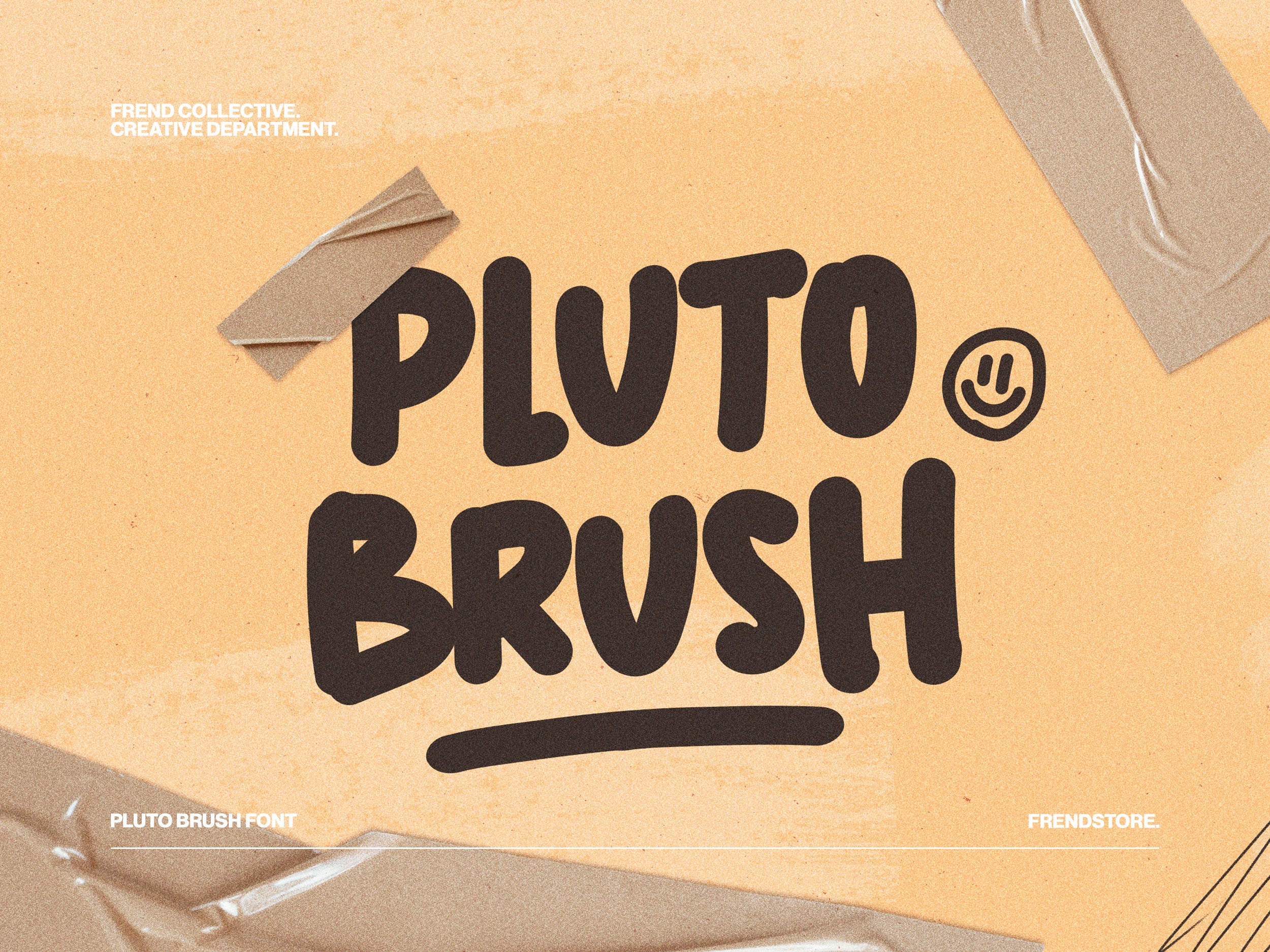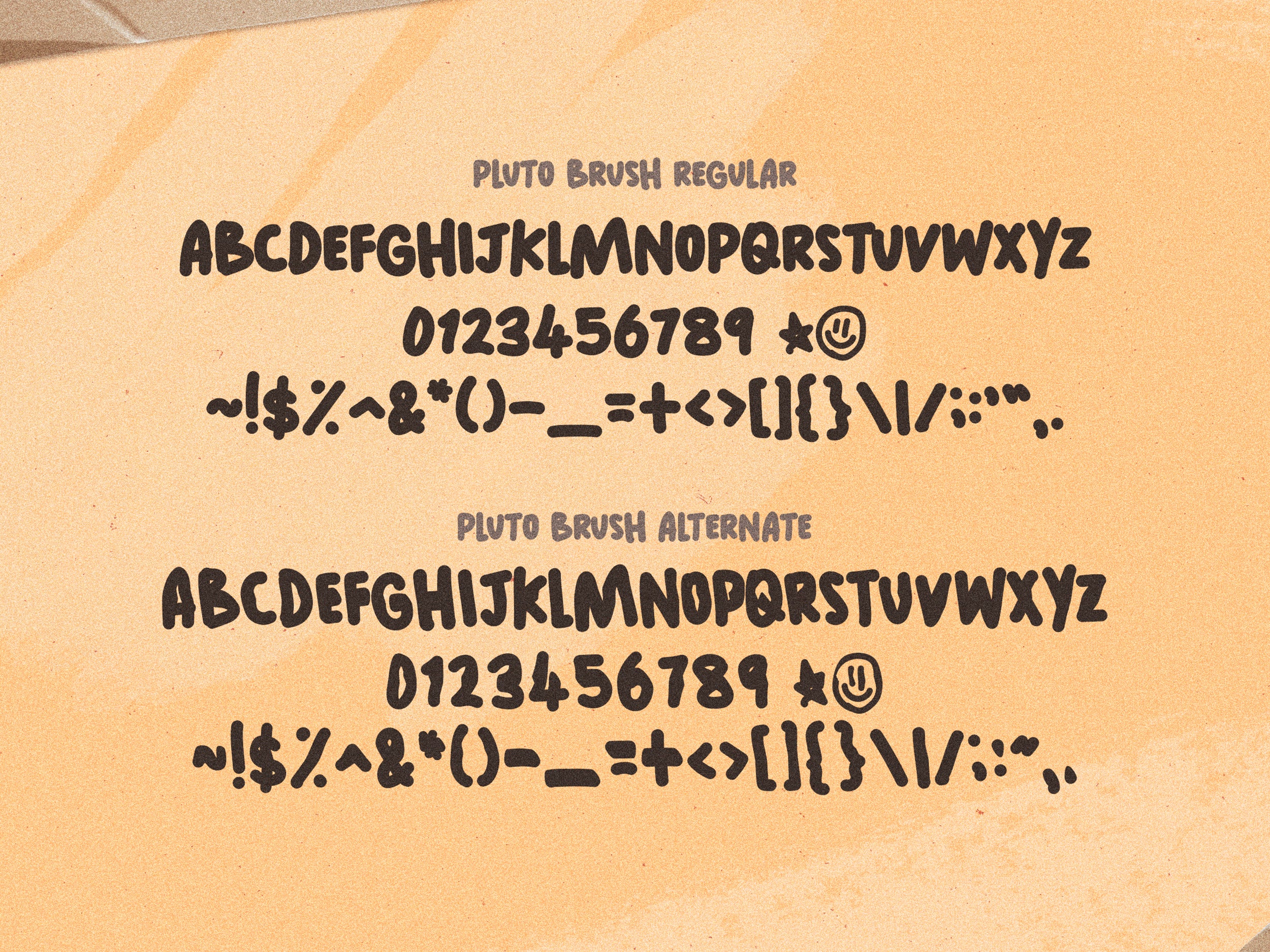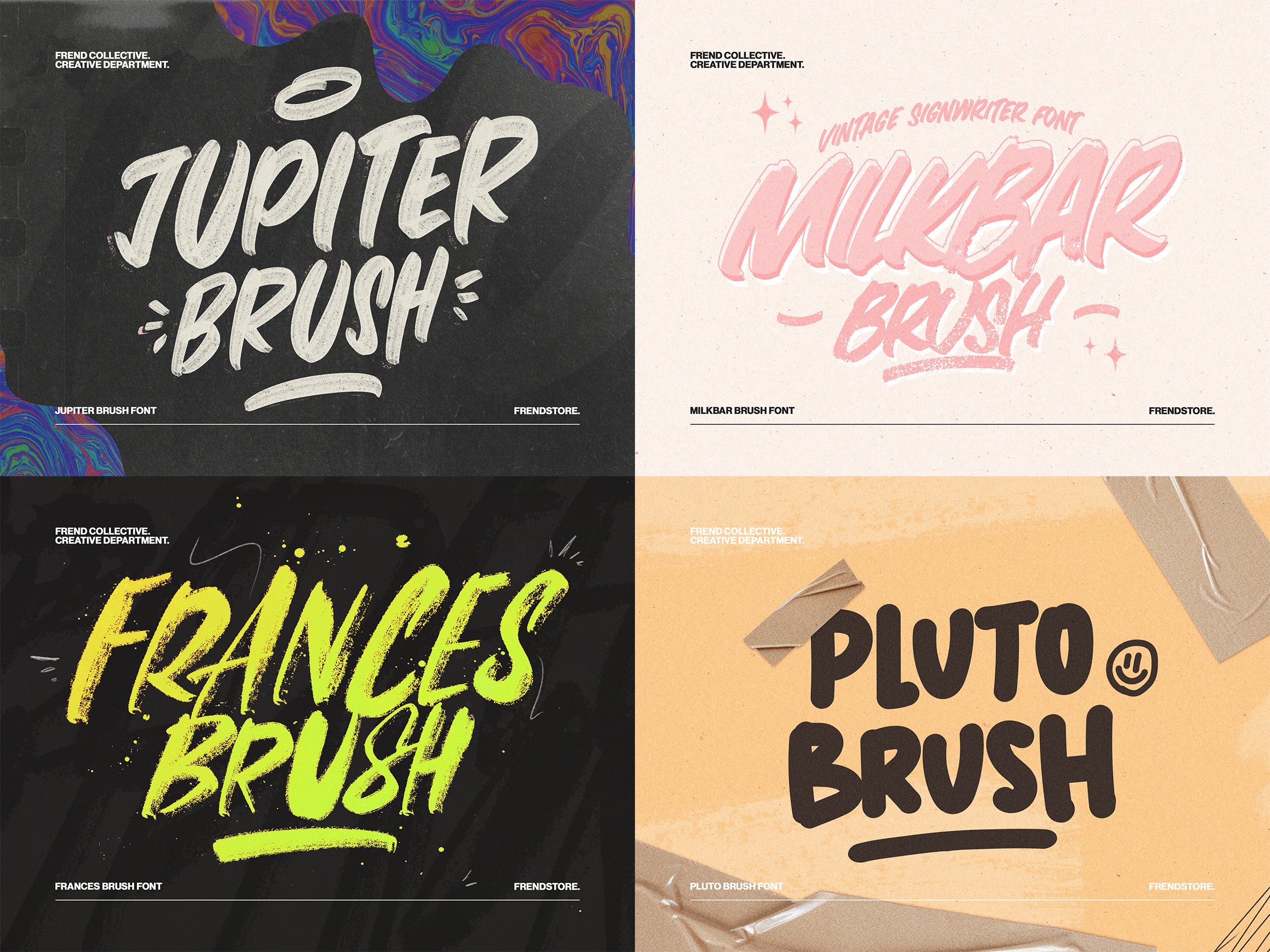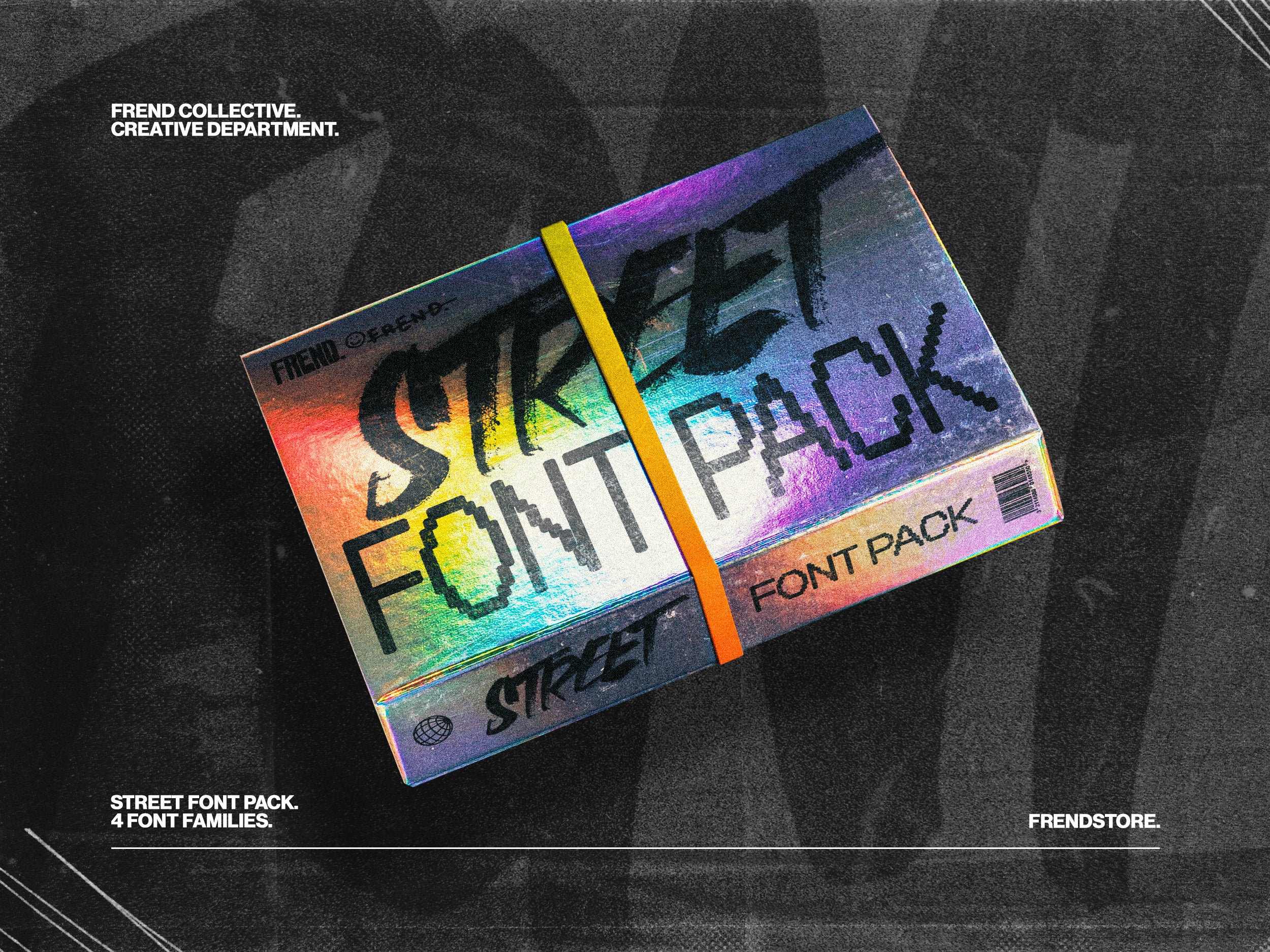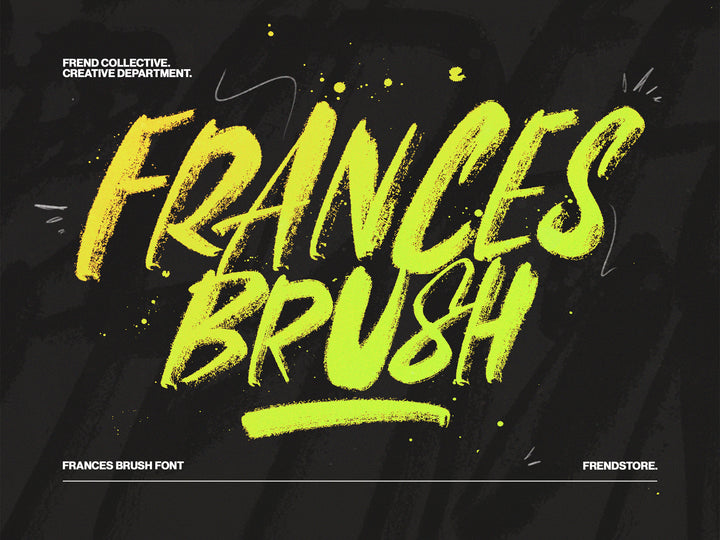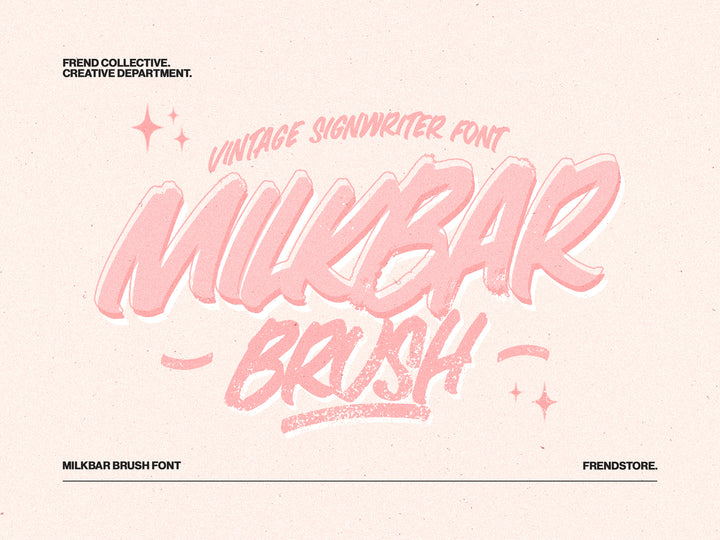
FREND STREET FONT PACK
Introducing "The Street" Font Pack
The Street Font Bundle is a carefully curated group of recent brush scripts & handwritten font families that pair perfectly. This is a must have bundle for anyone when wanting that street, graffiti look and feel, all fonts are high quality and can be used for any project! This pack includes 4x Font families and 12x fonts + extras.
Includes: Jupiter Brush Font, Milkbar Brush Font, Frances Brush Font, Pluto Brush Font.
Features: All Caps Fonts + Extras.